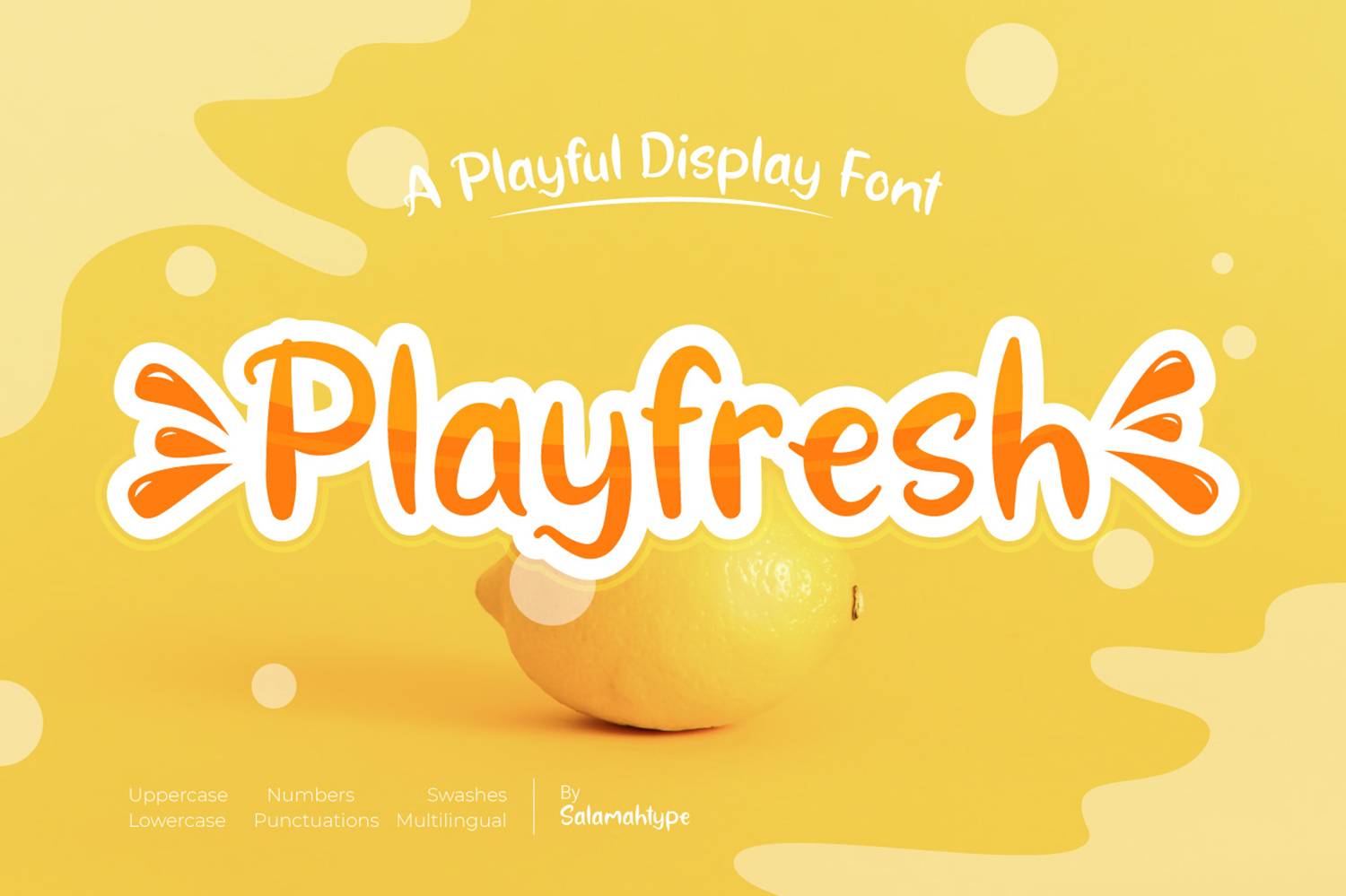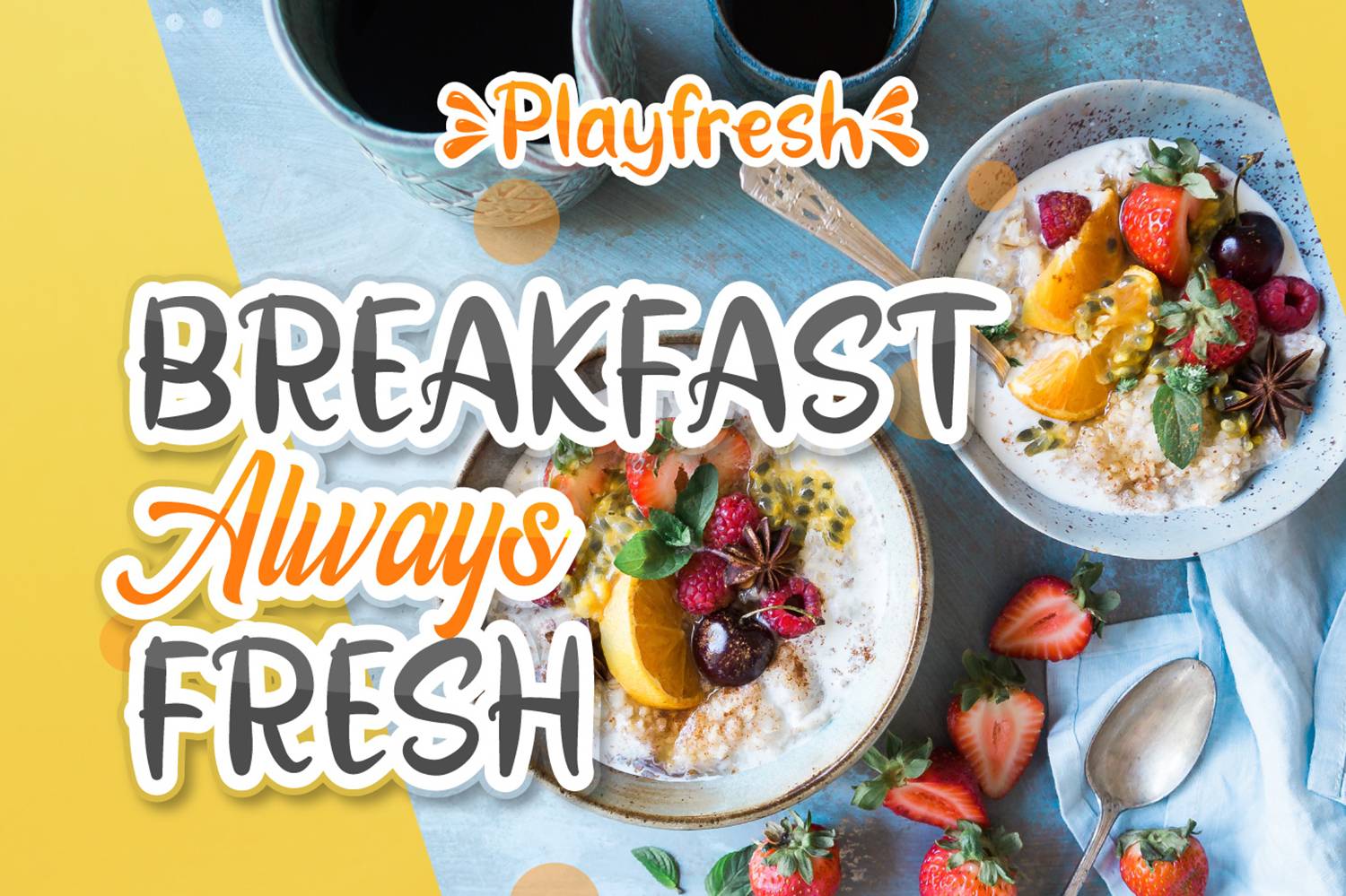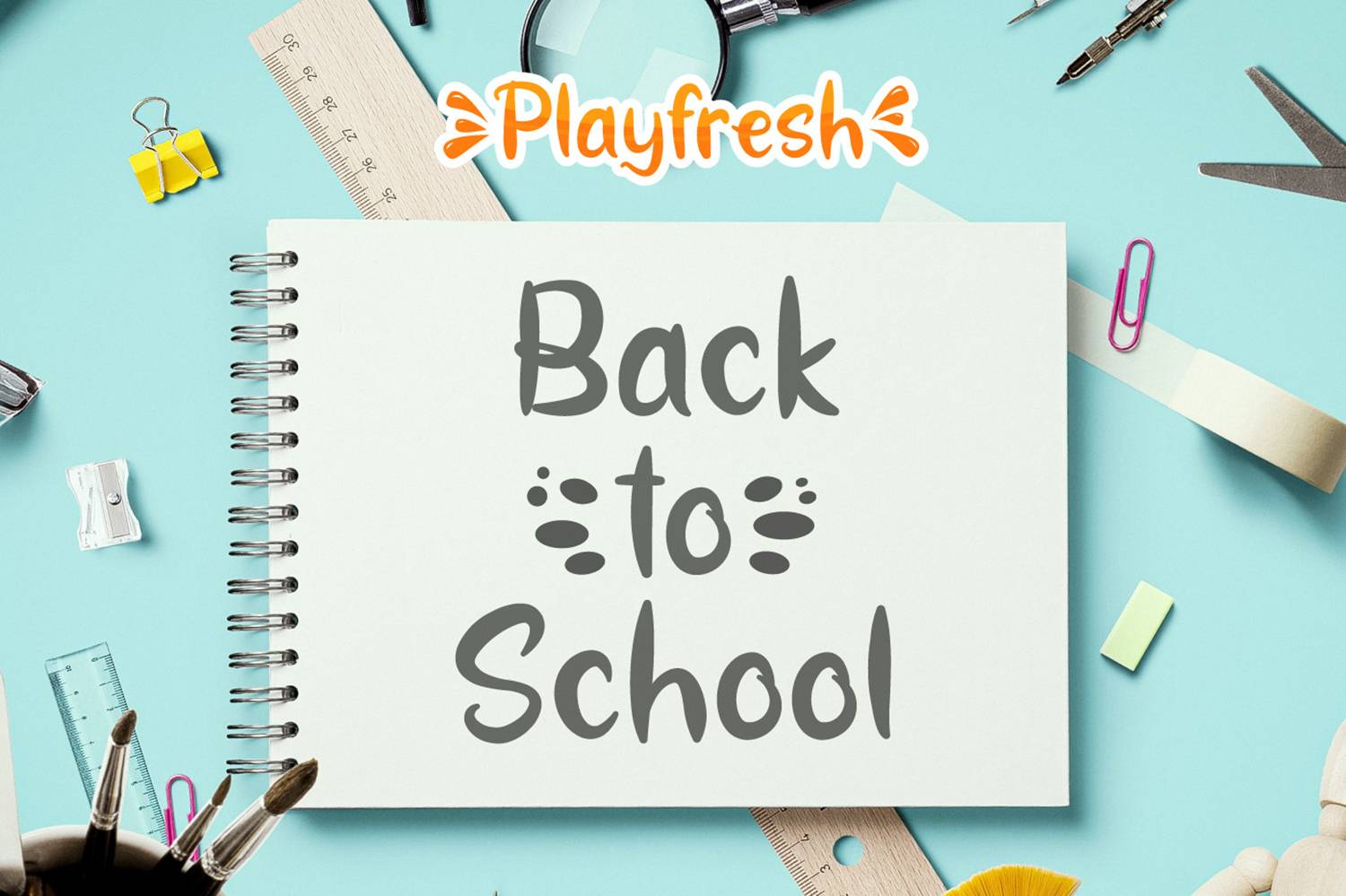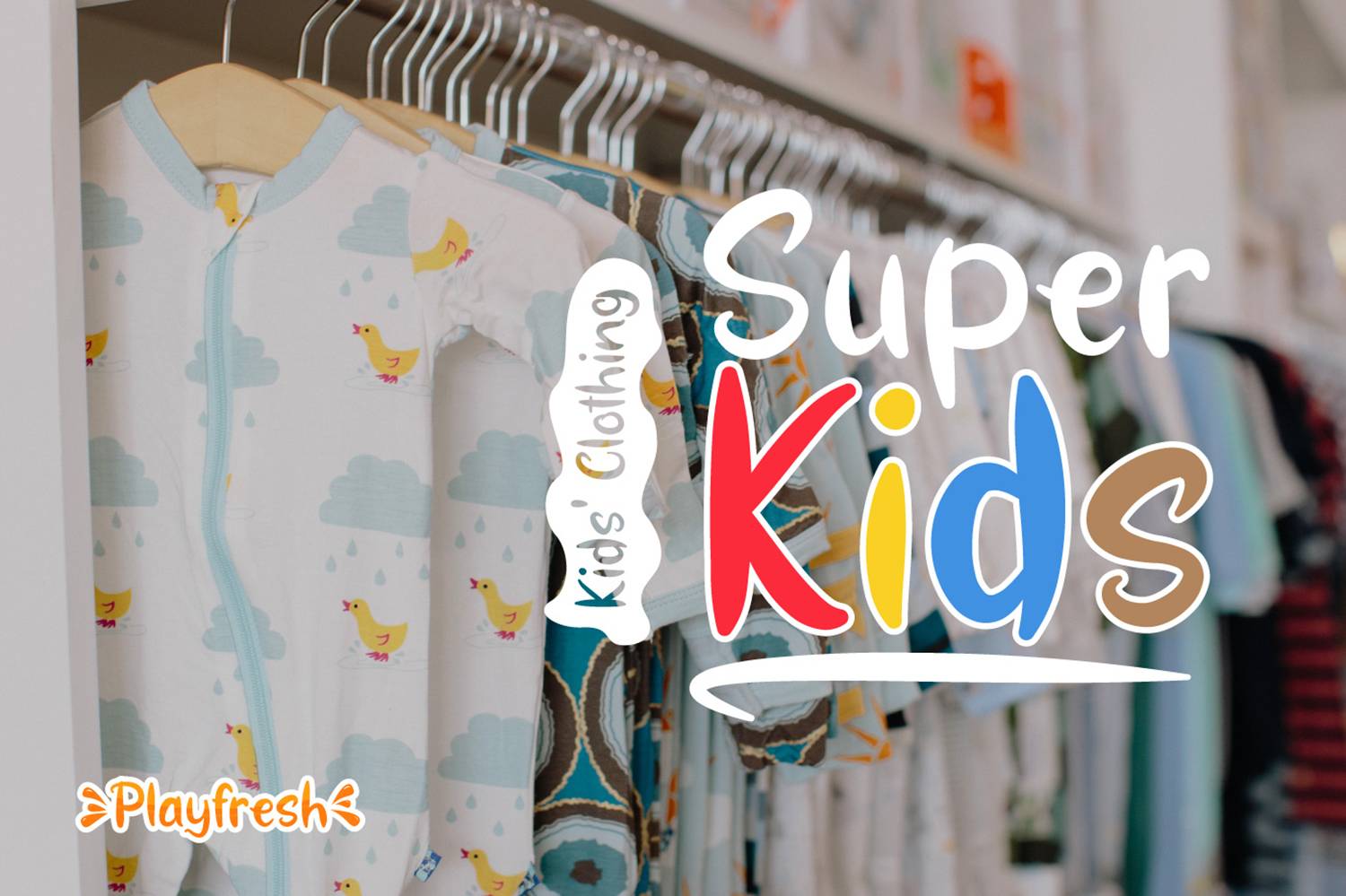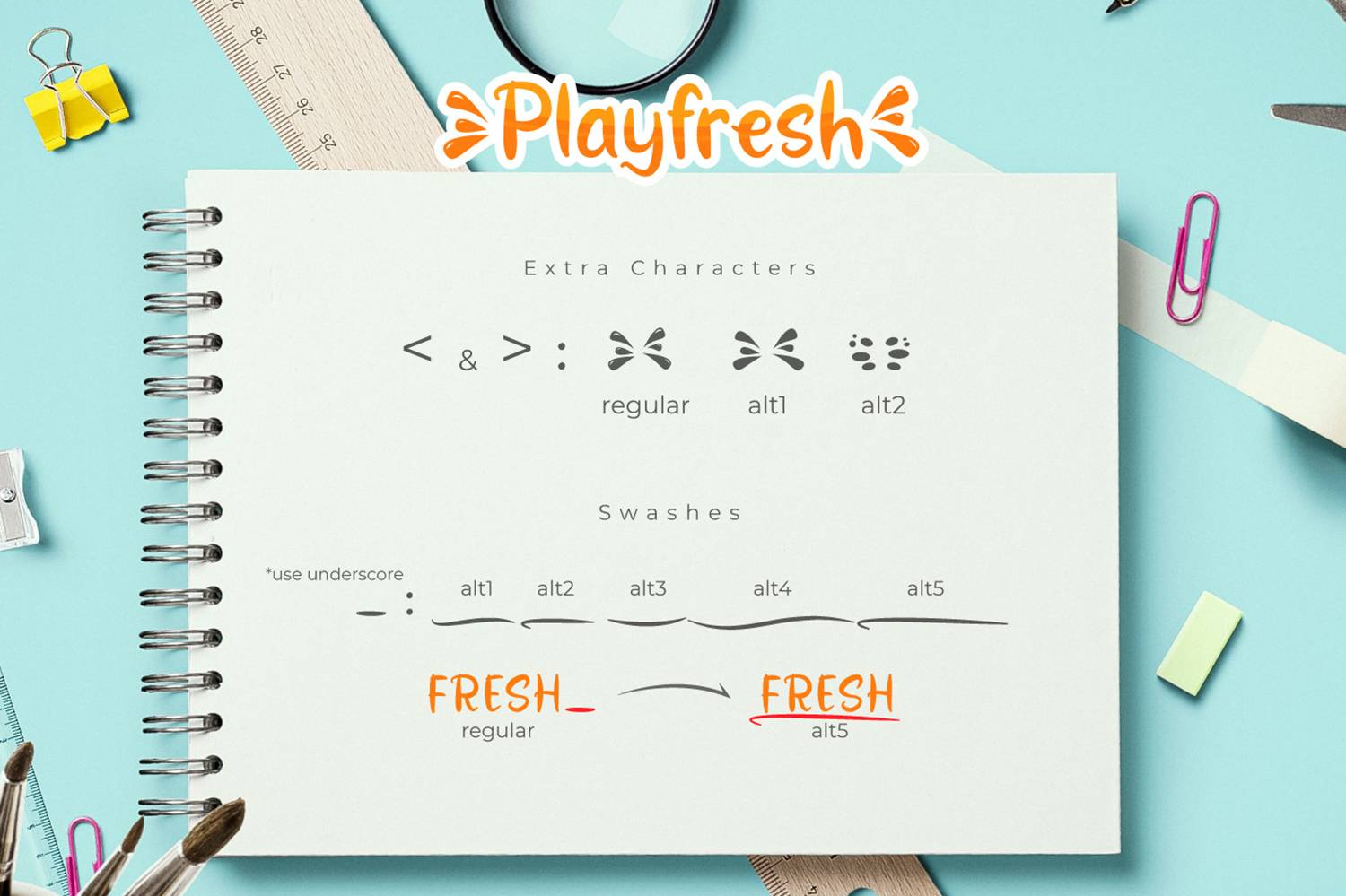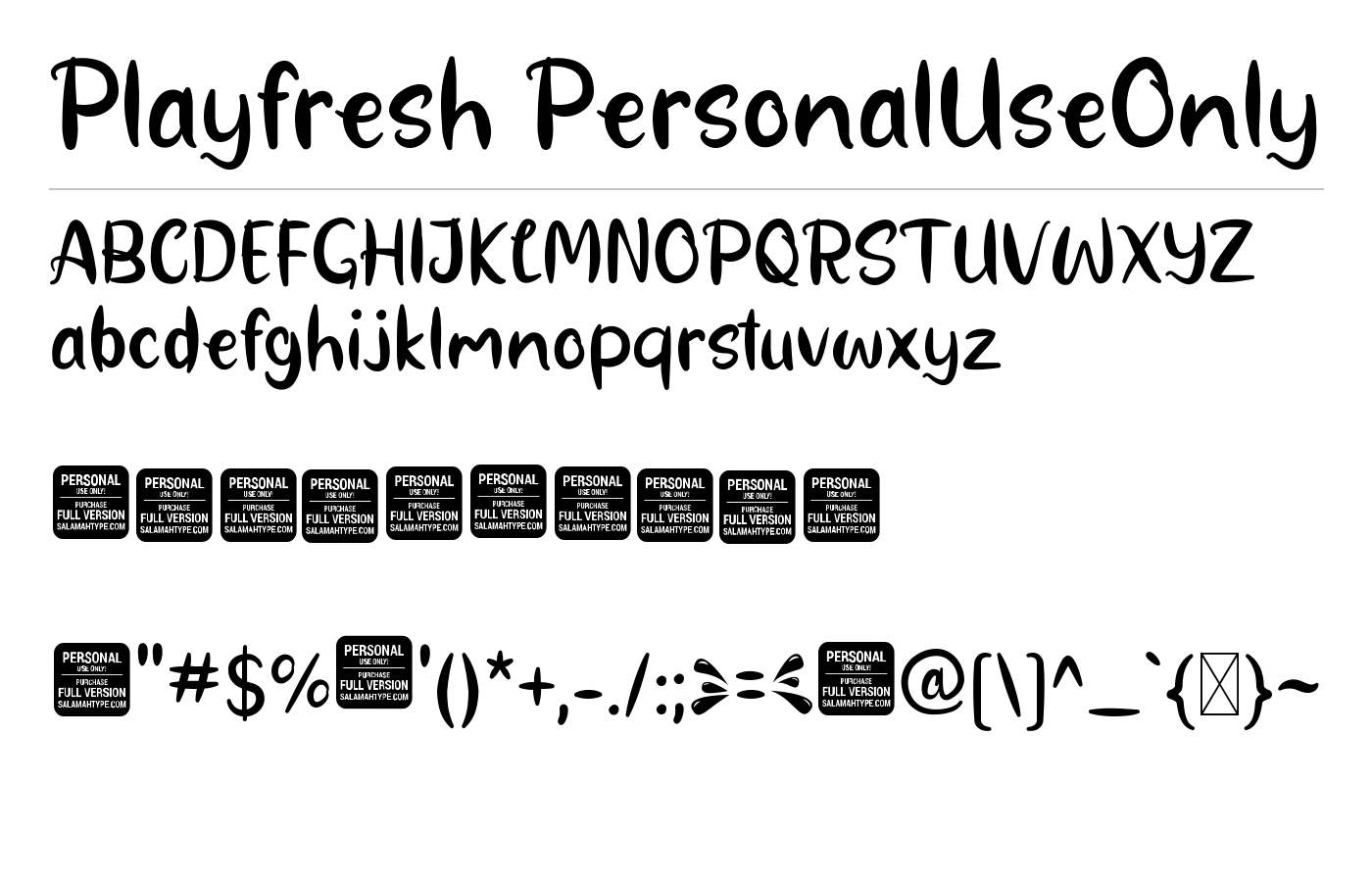
Playfresh is a lively and casual handwritten sans serif font with a playful, friendly character and a slightly irregular, organic feel. Its moderate weight and open letterforms make it approachable and easy to read, perfect for informal branding, kids’ products, and fun editorial projects. This font works best in headlines, logos, and creative designs that want to convey warmth, personality, and a fresh, energetic vibe.
Playfresh Font
About Playfresh Font